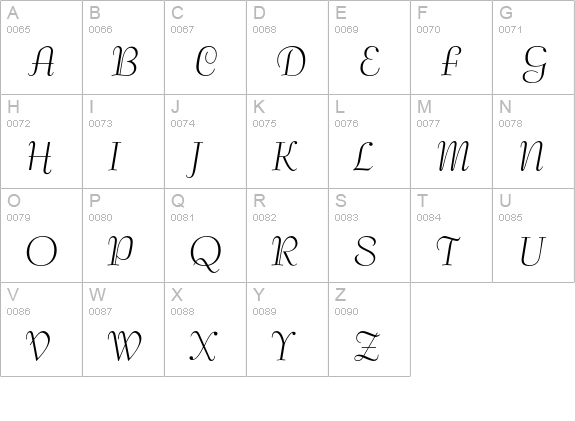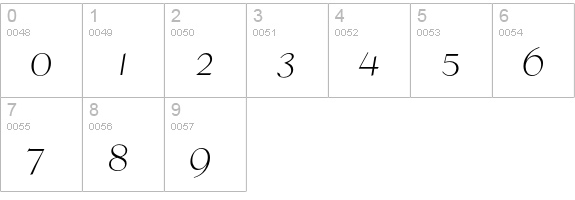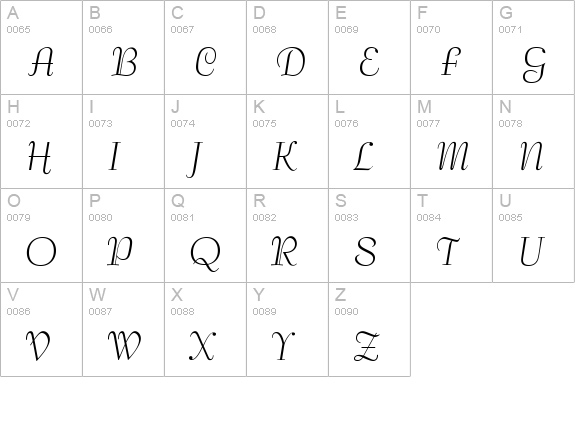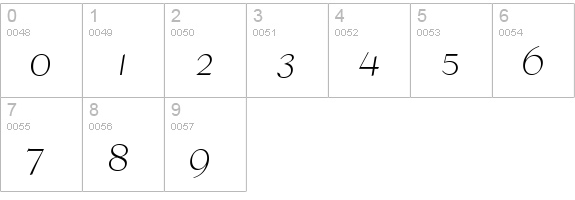
Bernhard Tango Font Details
Bernhard Tango font is a classic and elegant typeface that exudes sophistication and charm. With its stylish serifs and graceful curves, this font is perfect for adding a touch of refinement to any project. The timeless design of Bernhard Tango makes it versatile and suitable for a wide range of applications, from branding to editorial design. What makes Bernhard Tango font even more appealing is that it is available for free download at FontsMarket.com. This means that you can easily access this beautiful typeface and use it in your projects without any cost. Whether you're working on a personal project or a professional design, Bernhard Tango font is a great choice for adding a touch of class and elegance. Download it today and elevate your designs with this exquisite typeface.